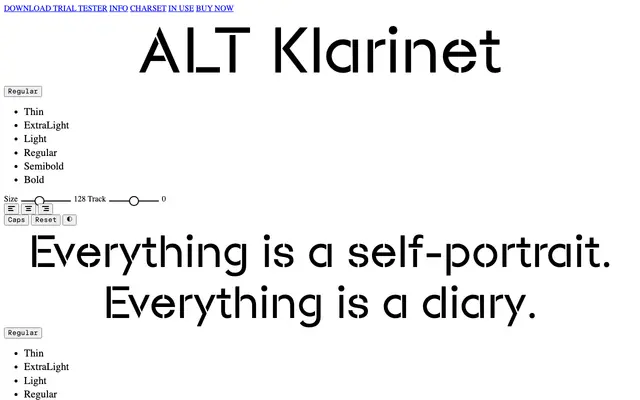
ALT Klarinet
A contemporary stencil sans from London-based ALT.tf, running six weights from Thin to Bold across a broad Latin character set.
Built on clean, geometric lines, the stencil cuts are consistent across all six weights, maintaining legibility at smaller sizes as well as at display scale. With over 393 glyphs and support for 244 languages, the family covers an unusually wide range of Latin diacritics for a display typeface. Work in the wild includes wine packaging, brand identity and editorial projects.
A contemporary stencil typeface built on a sans-serif skeleton with clean geometric lines and deliberate stencil cuts, placing it in the display category with a stencil sans subcategory.